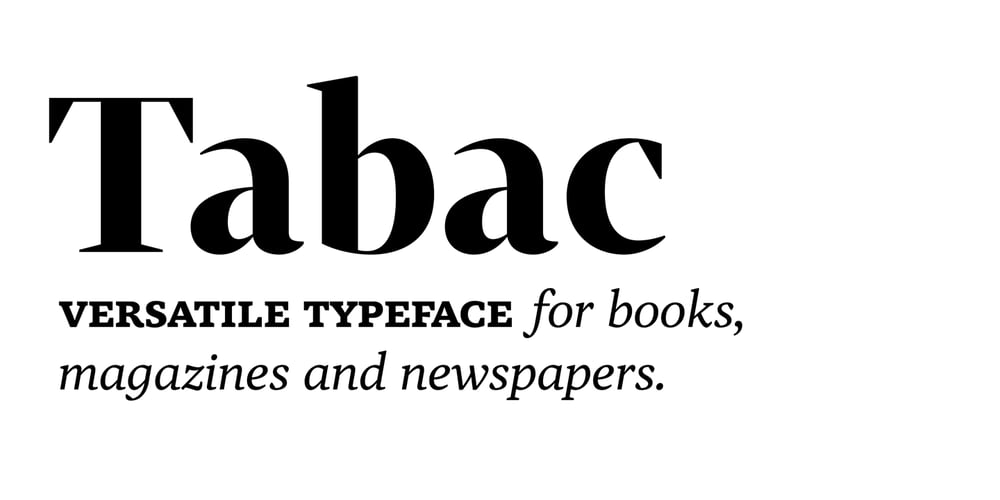
Tabac
Tabac font
Tabac Font Family was designed by published by Suitcase Type Foundry. Tabac contains 32 styles and family package options. The Tabac type system is a static typeface with modern shapes and distinct, wedge-shaped serifs. It is primarily designed for the setting of newspapers, magazines and books. Tabac boasts great variability in terms of letter weight in all of its styles. Each style works as a font of its own, featuring the full set of glyphs. The styles may be combined depending on the user; the choice of text and title face thus depends fully on the designer’s own taste, on the needs of the readers and the technologies of printing in use.